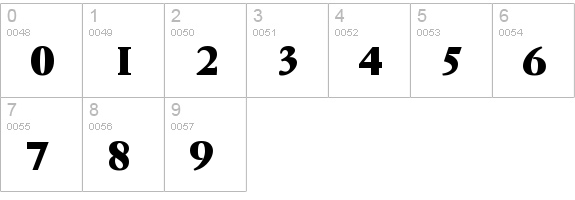
GarfeldSerial-Heavy Bold is a heavy, high-impact variant in the GarfeldSerial typeface family \xE2\x80\x94 well suited to high-impact headlines, posters, and display advertising.
GarfeldSerial-Heavy Bold font is a striking and bold typeface designed to make a statement in any design project. With its heavy weight and strong presence, this font is perfect for headlines, titles, and other prominent text elements. The sharp edges and clean lines of GarfeldSerial-Heavy Bold give it a modern and dynamic look that commands attention. Best of all, GarfeldSerial-Heavy Bold font is available for free download at FontsMarket.com. Whether you're working on a branding project, poster design, or any other creative endeavor, this font is sure to add a touch of boldness and style to your work. Download GarfeldSerial-Heavy Bold today and make your designs stand out with this powerful and impactful typeface.